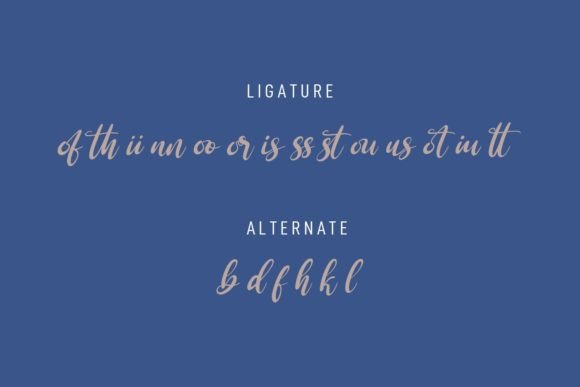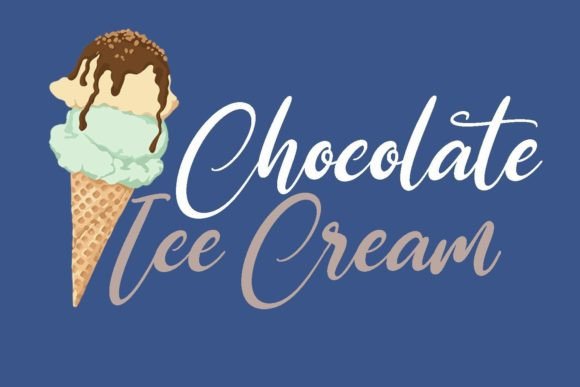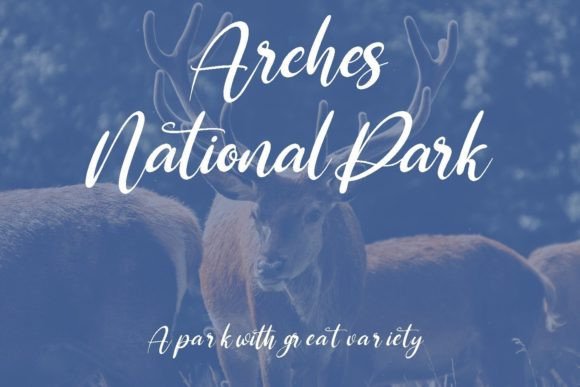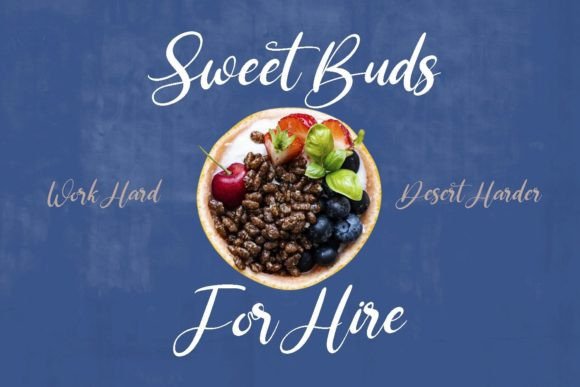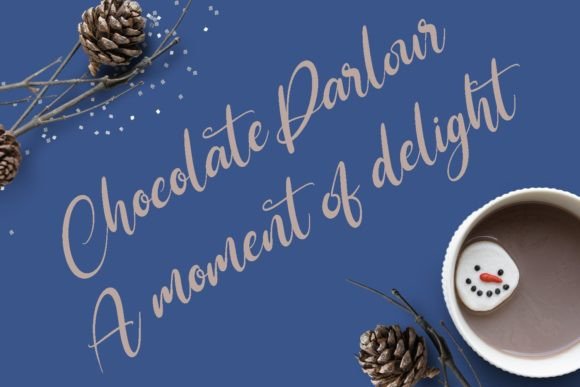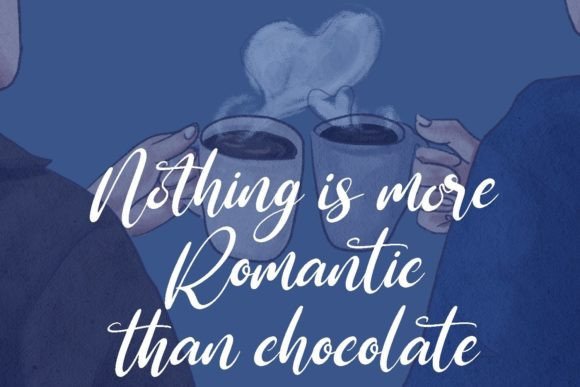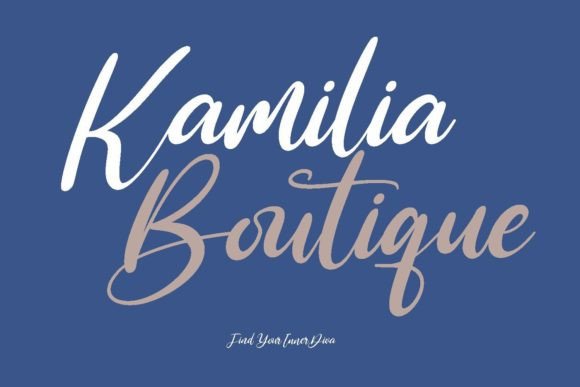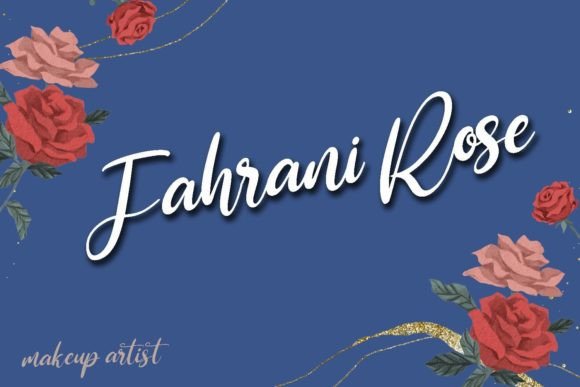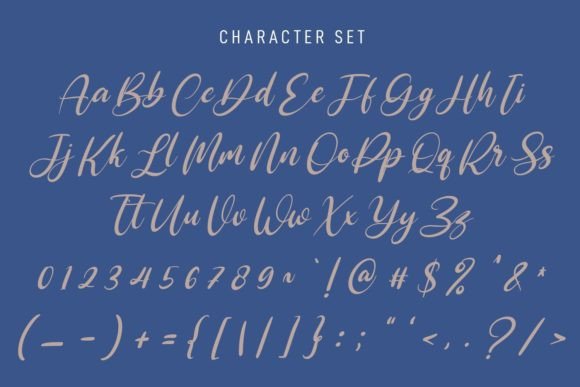
Speed Rolls Font
About Speed Rolls Font
“Speed Rolls” is a fancy and smooth script font that exudes elegance and sophistication. Its beautifully crafted and well-balanced characters lend a touch of refinement to any design project. The font’s smooth, flowing strokes and intricate details make it a versatile choice, suitable for a wide variety of creative applications.
With its fancy and polished appearance, “Speed Rolls” enhances the visual appeal of your designs. Whether you’re working on invitations, logos, packaging, signage, or any other project, this font adds a touch of class and charm. Its versatility allows it to adapt seamlessly to different themes and styles, making it an excellent choice for both formal and creative designs.
When you incorporate “Speed Rolls” into your creative ideas, you’ll notice how it brings them to life with its elegant flair. The font’s stylish and well-balanced characters create a harmonious visual experience, capturing the attention of viewers and leaving a lasting impression. Its versatility allows you to explore various design possibilities, making it a valuable asset for designers who want to elevate their projects to a higher level of sophistication.
Embrace the sophistication of “Speed Rolls” and let it transform your most creative ideas into visually stunning artworks. Whether used for print or digital media, this font adds a touch of elegance and professionalism to your designs. Its fancy and smooth script style ensures that your projects stand out and leave a memorable impact on your audience. With “Speed Rolls,” you can confidently enhance your creative endeavors and create designs that truly come alive with style and sophistication.